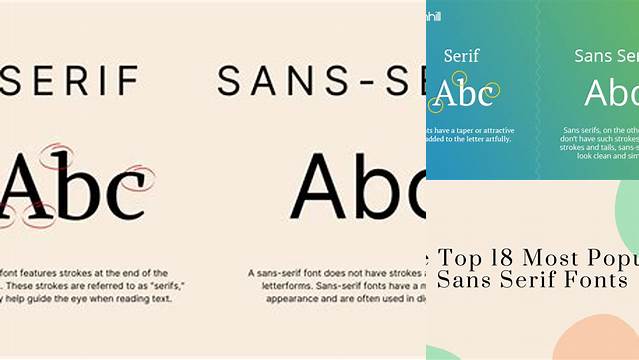
Sans Serif Fonts: When To Use In Business Writing
Sans-serif fonts have become increasingly popular in the world of business writing, and knowing when to use them can significantly impact how your message is received. This article dives deep into the appropriate use cases for sans-serif fonts, helping you make informed decisions that enhance readability and professionalism. From understanding the basic characteristics of sans-serif fonts to exploring their applications in various business documents and digital platforms, we’ve got you covered. So, let’s get started and explore the world of sans-serif fonts!
Understanding Sans Serif Fonts
Sans-serif fonts are characterized by the absence of small decorative strokes, known as serifs, at the end of each character. Unlike their serif counterparts, such as Times New Roman or Garamond, sans-serif fonts like Arial, Helvetica, and Calibri offer a cleaner, more modern appearance. This minimalist design makes them particularly effective in various digital and print applications, but it’s essential to understand their strengths and limitations to use them appropriately.
Characteristics of Sans Serif Fonts
One of the primary characteristics of sans-serif fonts is their simplicity. The absence of serifs gives them a streamlined, uncluttered look that many find appealing. This simplicity contributes to their excellent readability, especially on screens. The clean lines and uniform strokes make each character distinct, reducing the risk of visual clutter. Additionally, sans-serif fonts often have a more geometric and uniform structure, which enhances their modern feel. This makes them a great choice for businesses aiming to project a contemporary and forward-thinking image.
Another notable feature is their versatility. Sans-serif fonts come in a wide range of weights and styles, from light and airy to bold and impactful. This variety allows you to use them in different contexts while maintaining a consistent aesthetic. For example, you might use a lighter weight for body text to ensure readability and a bolder weight for headings to draw attention. The adaptability of sans-serif fonts means they can be used across various business documents and marketing materials, helping to create a cohesive brand identity.
Common Examples of Sans Serif Fonts
Several sans-serif fonts are widely used in business and design, each with its unique characteristics. Arial, one of the most ubiquitous fonts, is known for its clean and straightforward design, making it highly readable in various sizes. Helvetica is another popular choice, celebrated for its neutrality and clarity, which makes it suitable for a wide range of applications, from logos to body text. Calibri, which was the default font in Microsoft Office for many years, offers a softer and more rounded appearance compared to Arial and Helvetica, making it a friendly option for business communications.
Other notable sans-serif fonts include Futura, known for its geometric shapes and modernist aesthetic, making it ideal for headings and display purposes. Open Sans is another excellent choice, designed with readability in mind, especially on digital screens, making it perfect for websites and online documents. Understanding the nuances of these different fonts can help you select the best one for your specific needs, ensuring your message is conveyed effectively and professionally.
Best Use Cases for Sans Serif Fonts in Business
Sans-serif fonts excel in a variety of business applications, particularly in digital environments. Their clean, modern appearance makes them ideal for websites, presentations, and marketing materials where readability and visual appeal are paramount. However, understanding the specific contexts in which they shine can help you make the best choice for your communication needs.
Digital Media
In the realm of digital media, sans-serif fonts are often the preferred choice. Websites benefit significantly from the clarity and legibility of sans-serif fonts, especially for body text. Fonts like Open Sans, Roboto, and Lato are designed specifically for screen readability, ensuring that visitors can easily read and digest the content on your site. The crisp lines of sans-serif fonts prevent the blurring that can sometimes occur with serif fonts on lower-resolution screens, enhancing the user experience.
For presentations, sans-serif fonts offer a clean and professional look. Whether you’re using PowerPoint, Keynote, or Google Slides, choosing a sans-serif font like Arial or Helvetica can make your slides more visually appealing and easier to read from a distance. The simplicity of these fonts ensures that your audience can focus on the content rather than being distracted by overly ornate typography.
In the context of email marketing, sans-serif fonts are also a strong contender. Their readability makes them ideal for crafting compelling email newsletters and promotional materials. Using a sans-serif font in your email design can improve engagement and click-through rates, helping you achieve your marketing goals.
Marketing Materials
Marketing materials such as brochures, flyers, and posters can greatly benefit from the use of sans-serif fonts. The modern and clean aesthetic of these fonts can help your brand project a contemporary image. When designing marketing collateral, consider using sans-serif fonts for headings and subheadings to capture attention and create a visual hierarchy. Pair them with complementary fonts for body text to ensure readability and maintain a balanced design.
In conclusion, understanding when to use sans-serif fonts in business writing can significantly enhance the effectiveness of your communication. Sans-serif fonts are particularly well-suited for digital media, marketing materials, and user interfaces, where their clean and modern appearance can improve readability and visual appeal. However, it’s essential to consider the context and audience when making your choice, as serif fonts may be more appropriate for extensive body text in print or formal documents. By carefully considering these factors and following the tips outlined in this article, you can make informed decisions that ensure your typography supports your message and enhances your brand identity.